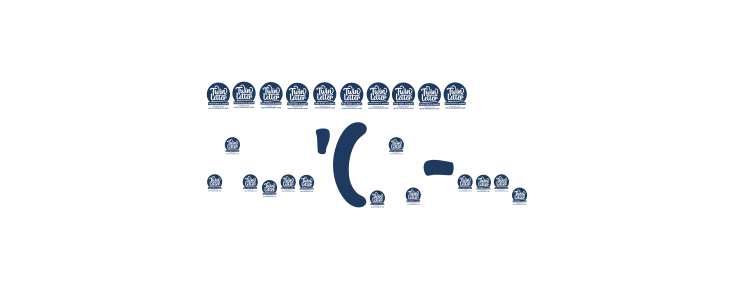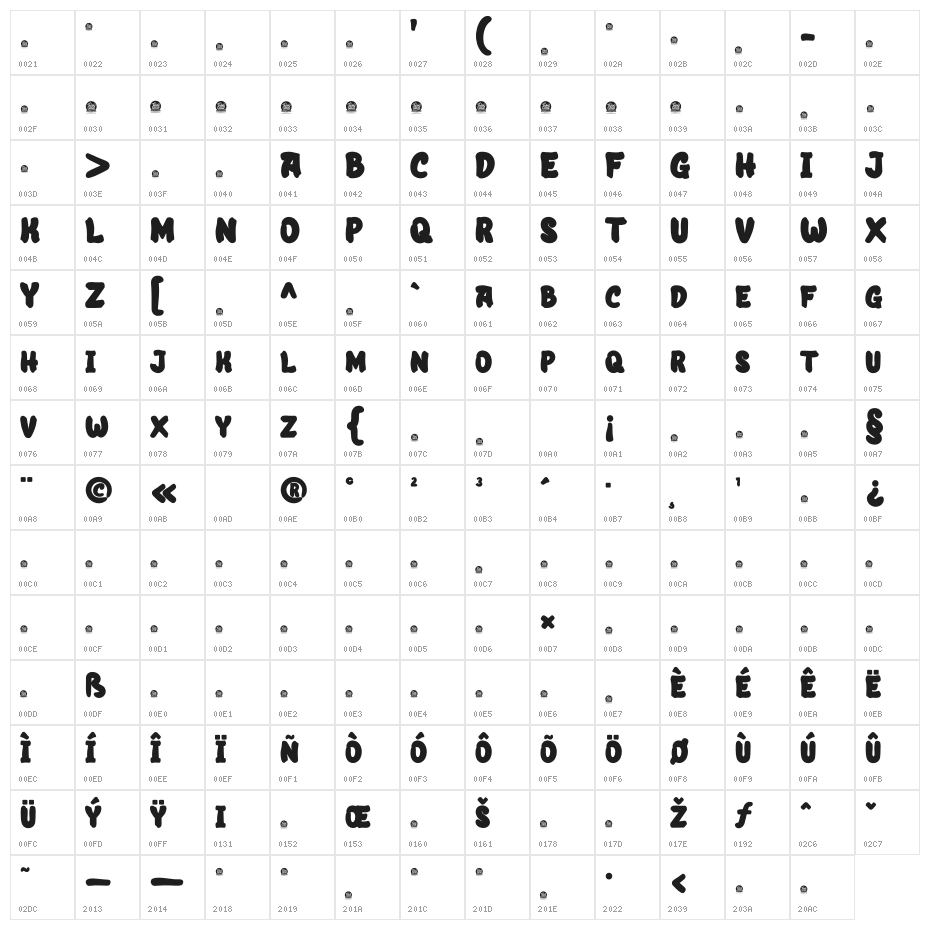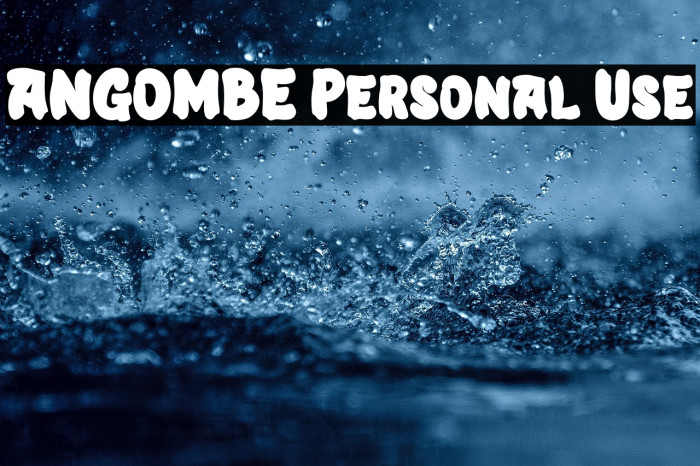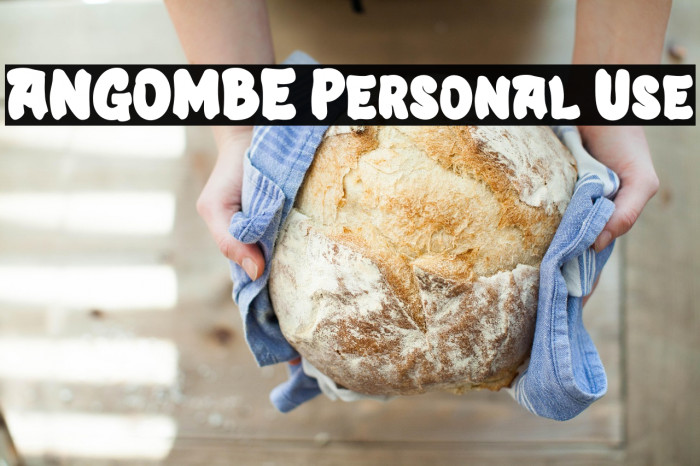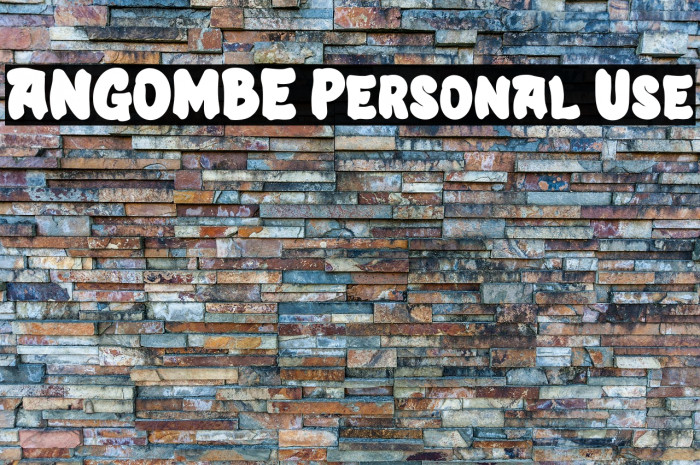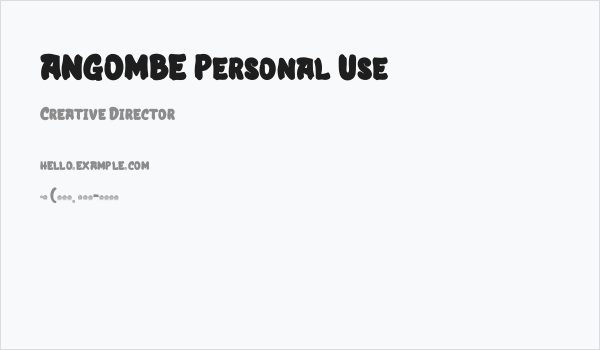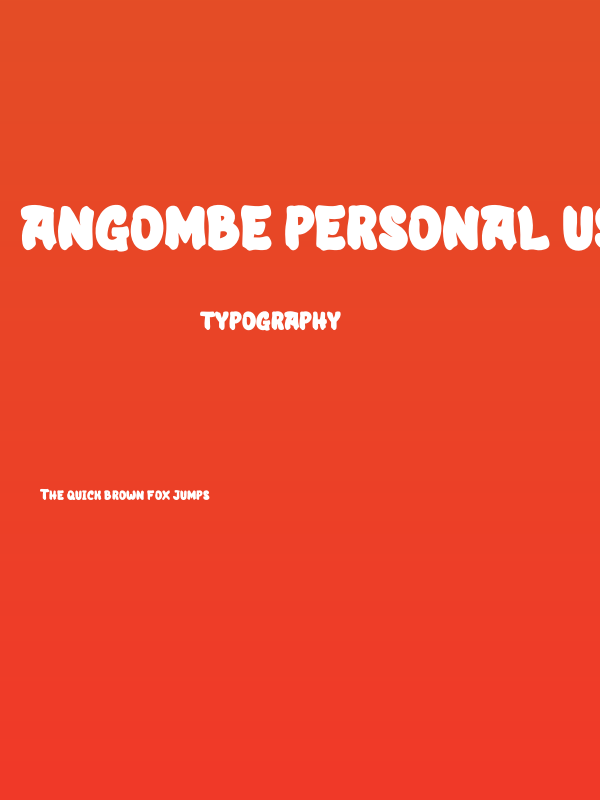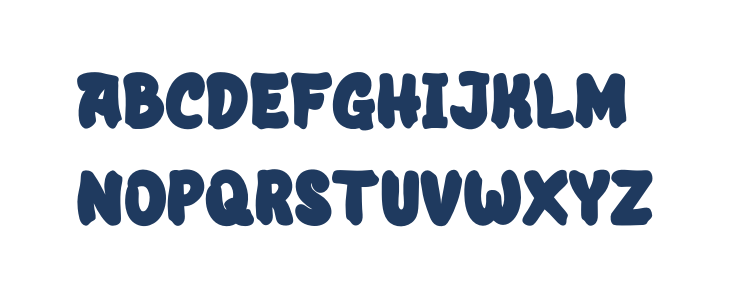
ANGOMBE Personal Use Font
ANGOMBE Personal Use Description
This font features a bold and playful design with thick, rounded strokes that give it a friendly and approachable appearance. The characters are uniformly bold, with a slightly irregular shape that adds a touch of whimsy and uniqueness. The uppercase letters are particularly striking, with a strong presence that makes them ideal for attention-grabbing headlines. The lowercase letters maintain the same boldness, ensuring consistency across different text cases. The numbers and special characters are designed with the same playful style, making them suitable for a variety of creative projects. Overall, this font exudes a sense of fun and creativity, making it perfect for projects that aim to convey a lively and energetic vibe.
| Overall Style | Playful, Creative |
| Proposed Projects | Ideal for children's books, playful branding, posters, and creative social media graphics. |